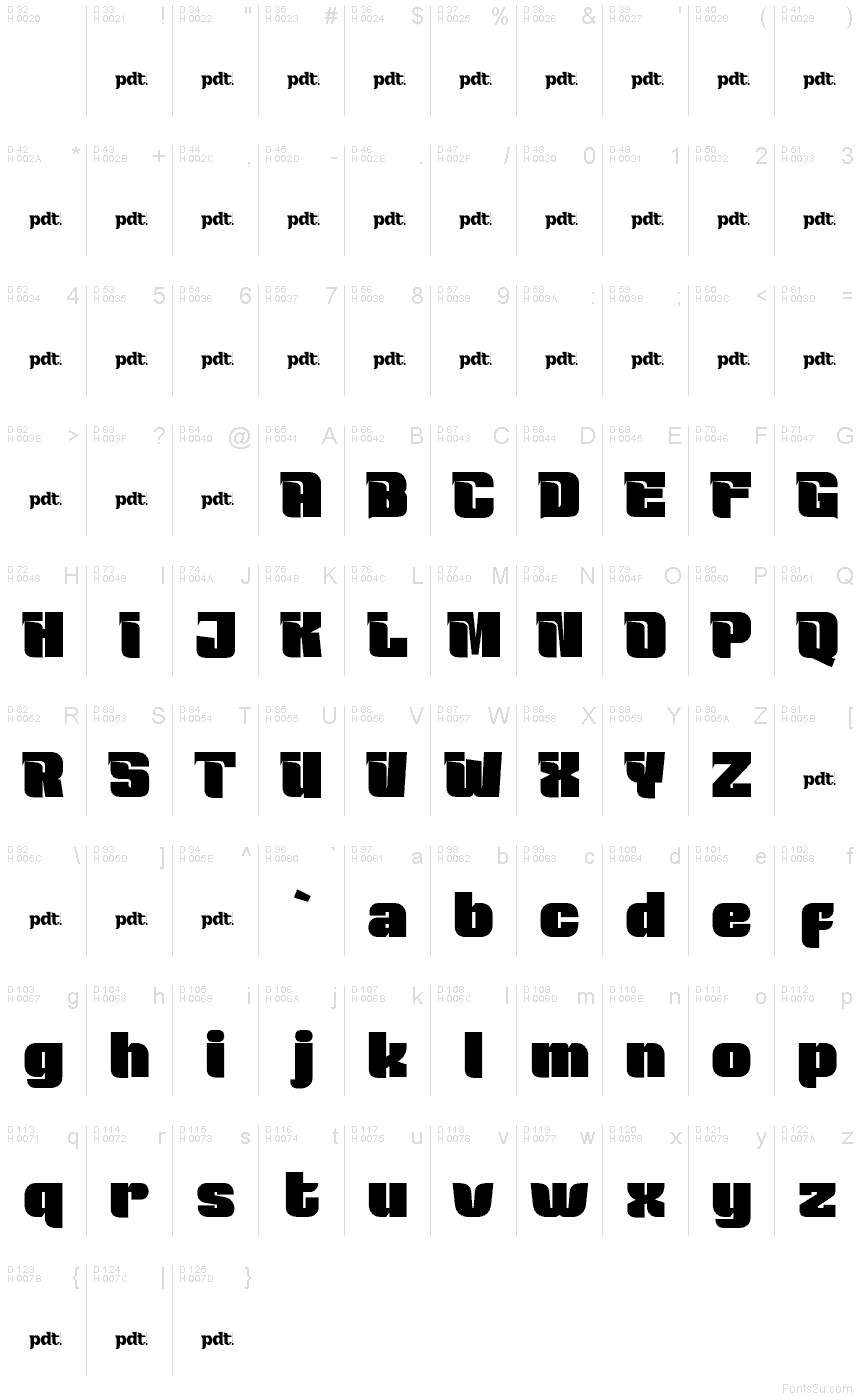
EKUHOT Regular
Ekuhot font by productype.com is a free bold techno display font. Built around deep, angular cutouts that slice through heavy blocks, it carries a turbine-like rhythm—sharp, pressurized, and fast. The tight spacing and high-contrast wedges create a pulsing silhouette that reads instantly at a glance, like light vents cut into metal.
Using Ekuhot adds a kinetic edge to esports branding, sci‑fi posters, game titles, DJ flyers, event signage, and gadget packaging. Those carved channels guide the eye, making short words snap and longer headlines feel modular and engineered. This free font shines at large sizes; give it a touch of extra tracking for breath. Pair with a simple geometric sans for supporting copy to keep the spotlight on the cuts.